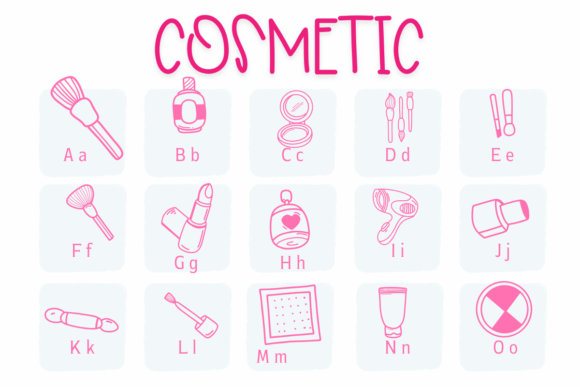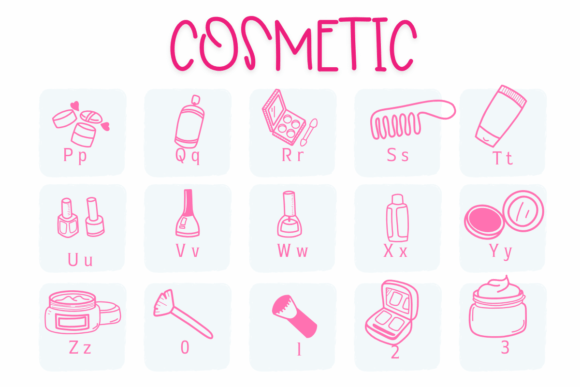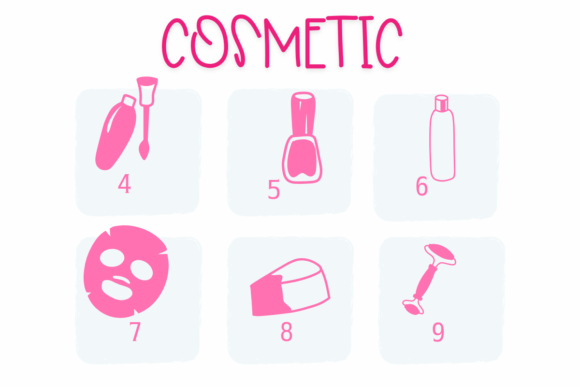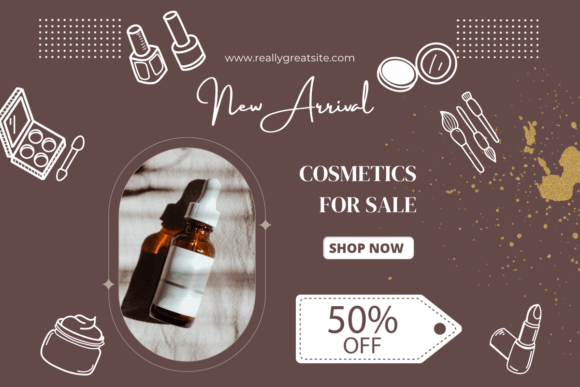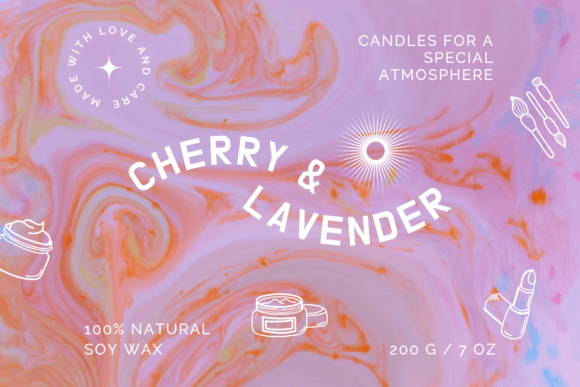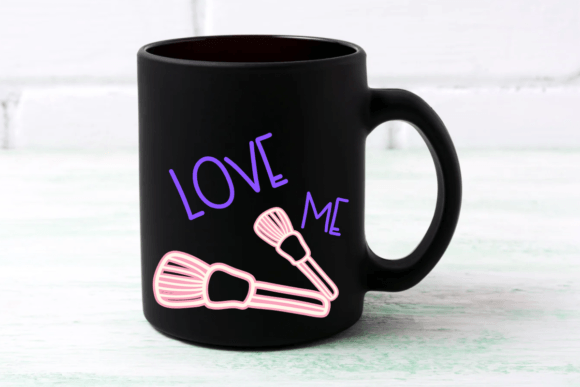
Introduction to Cosmetic Font
Have you ever been rummaging through a craft store, searching for the perfect embellishment to add that extra oomph to your DIY project? Or perhaps you’re a graphic designer looking for a unique design element to elevate your client’s branding? Whatever the case, you’re in luck because we’re about to introduce you to a game-changing design resource: the Cosmetic Font.
This fun and quirky dingbats font is more than just a pretty face – it’s a versatile tool that can add a touch of whimsy to any creative project. With its high-quality design and transparent background, you can easily integrate it into your designs without worrying about any pesky background distractions.
Key Features of Cosmetic Font
- High-quality, unique design ideal for creative projects requiring a touch of elegance.
- Features a transparent background, allowing for easy customization and layering in graphic design projects.
- Designed with a high resolution of 300 DPI, ensuring crisp and clear display in print and digital media.
- Perfect for use in logos, branding, and packaging design, thanks to its sophisticated and stylish appearance.
Honest Review: Cosmetic Font
I recently stumbled upon Cosmetic Font, a high-quality design resource that caught my attention. The first thing I noticed was the sleek and modern aesthetic of the font, which I believe would be perfect for a creative project.
- ✨ High-quality design: Cosmetic Font truly stands out with its crisp and clear typography.
- ✨ Transparent background: The font has a transparent background, making it easy to layer and blend with other design elements.
- ⚠️ Limited style options: While the font itself is high-quality, I was a bit disappointed to find that there aren’t many style options available.
- ⚠️ Not suitable for all projects: The modern aesthetic of the font may not be suitable for more traditional or formal projects.
Overall, I’m impressed with Cosmetic Font. While it may have some limitations, it’s a great resource for designers working on creative projects. I’d definitely recommend it to anyone looking for a high-quality font with a modern twist.
Cosmetic Font
Tips for Getting the Most Out of Cosmetic Font
Use Cosmetic Font to add a touch of elegance to your designs.
Combine it with other design elements to create a unique look.
Experiment with different font sizes and colors to achieve the desired effect.
Cosmetic Font is ideal for:
Branding and logo design
Product packaging and labeling
Q: Can I use Cosmetic Font with a transparent background?
Yes, Cosmetic Font includes a transparent background option, allowing you to easily combine it with other design elements and create a seamless visual effect.
Q: Is Cosmetic Font suitable for high-quality design projects?
Yes, Cosmetic Font is designed to meet the highest standards of quality and is suitable for use in high-end design projects, including branding, advertising, and packaging design.